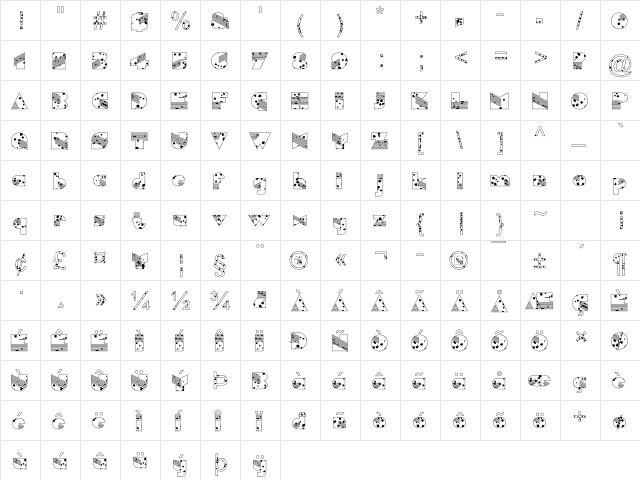
FZ UNIQUE 11 SPOTTED Normal Font Preview
FZ UNIQUE 11 SPOTTED Normal
Design Context for FZ UNIQUE 11 SPOTTED Typeface
FZ UNIQUE 11 SPOTTED is a composed and adaptable typeface that performs quietly and consistently across a wide range of design contexts.